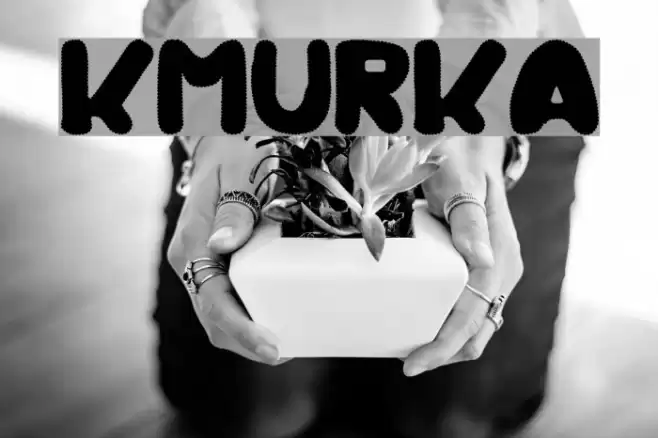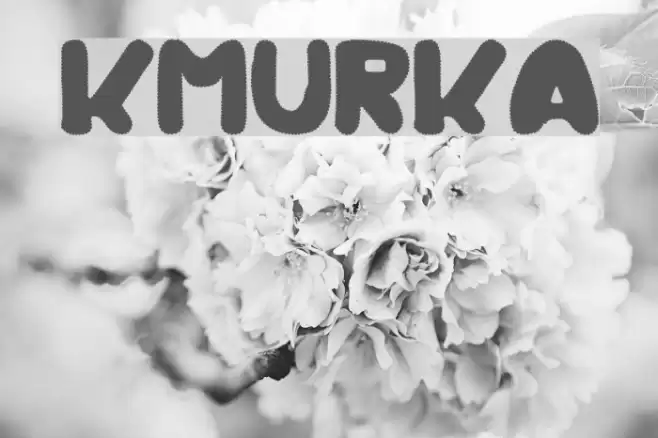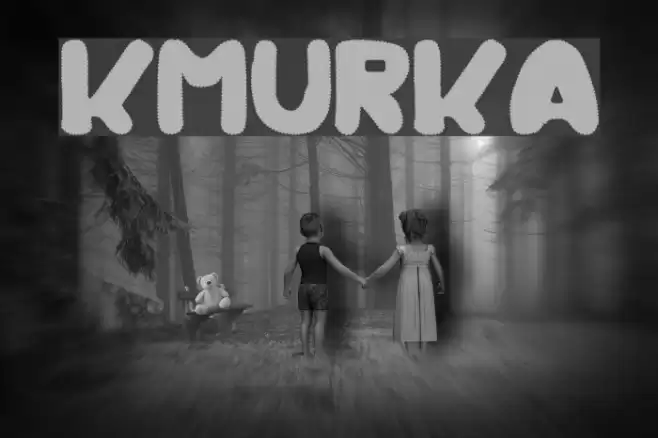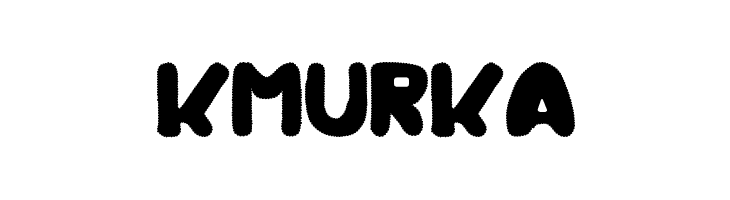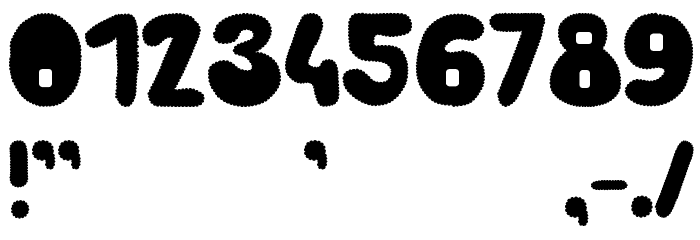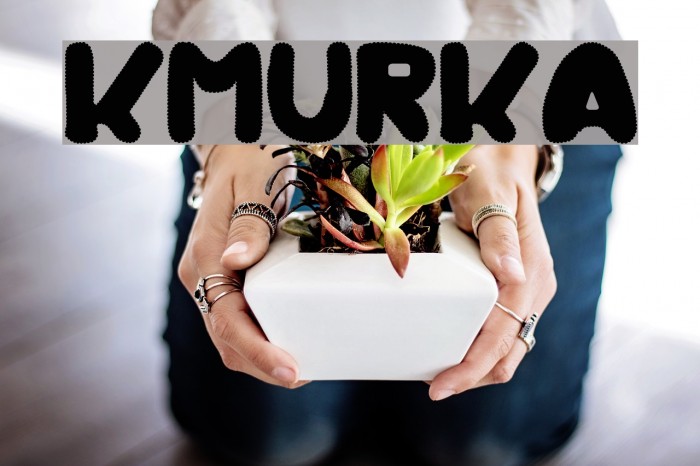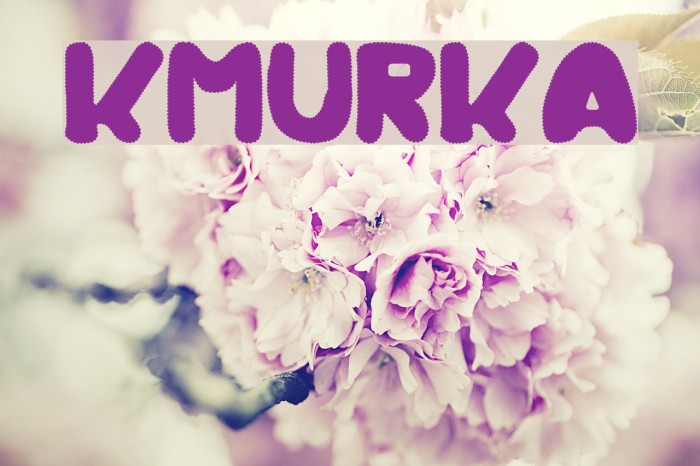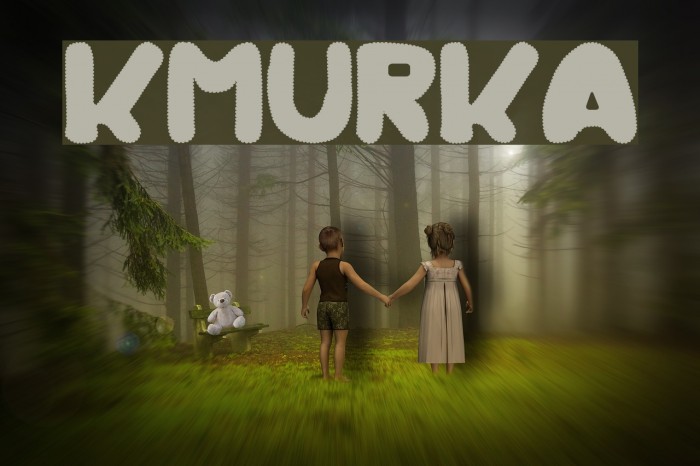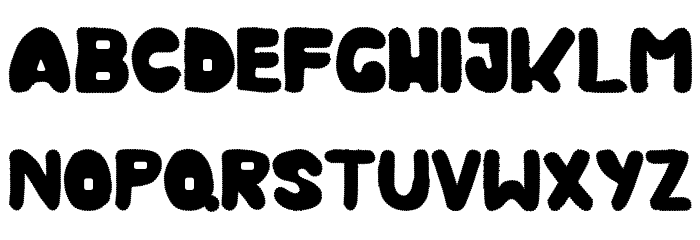
kmurka Font
kmurka Description
This font features a bold and playful design with rounded edges and a bubbly appearance. The characters are thick and uniform, creating a sense of fun and whimsy. The uppercase and lowercase letters maintain a consistent style, with a slight variation in size to distinguish them. Numbers and special characters follow the same playful aesthetic, making the font suitable for creative and informal applications. The overall look is eye-catching and ideal for projects that require a touch of humor or lightheartedness.
A bold, playful font with rounded edges and a bubbly appearance from Comic fonts.
- Proposed Projects: Ideal for children's books, playful branding, party invitations, and comic-style graphics.
- Overall Style: Playful, Fun, Whimsical